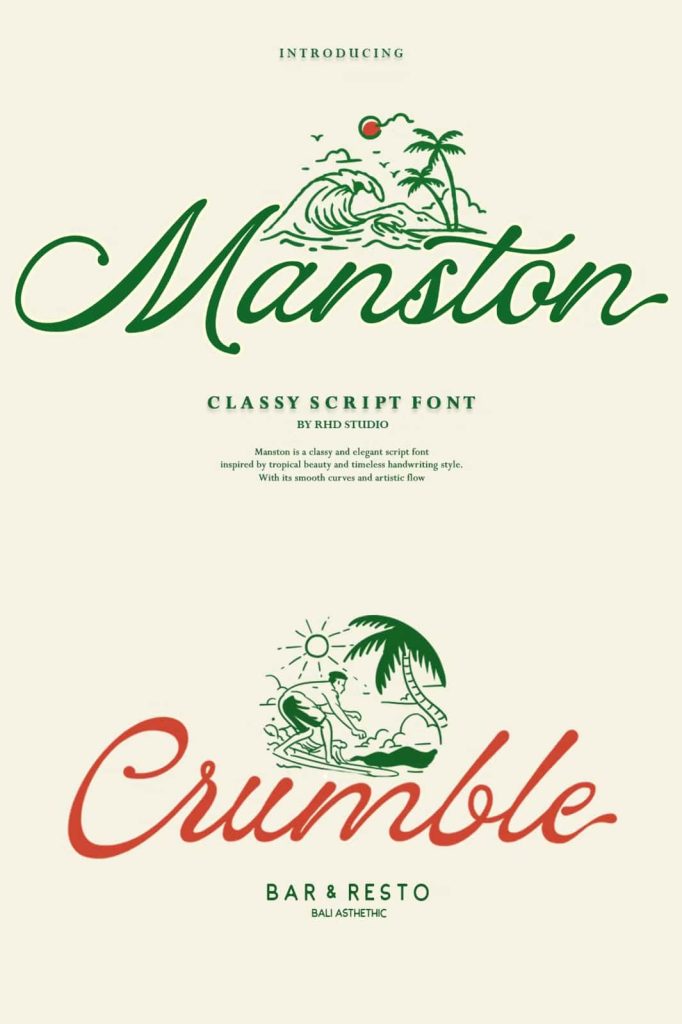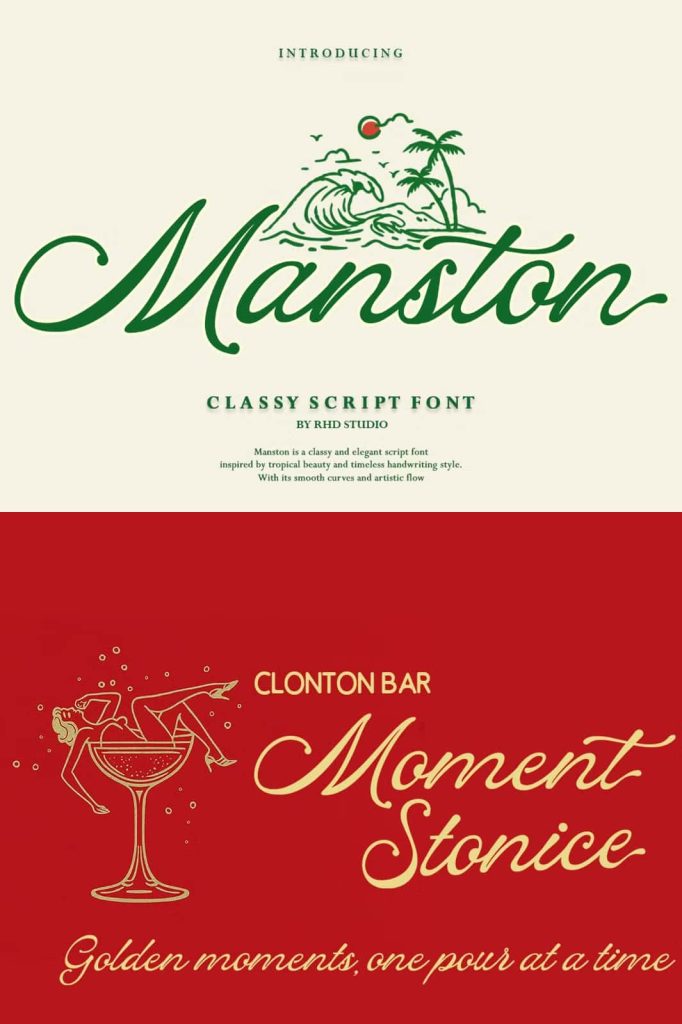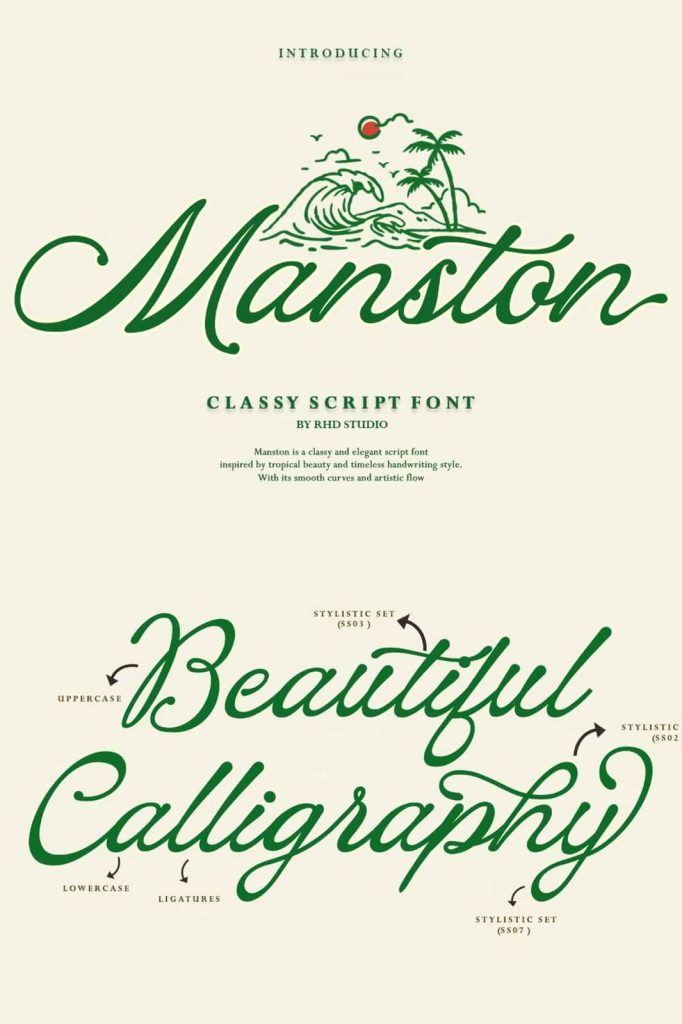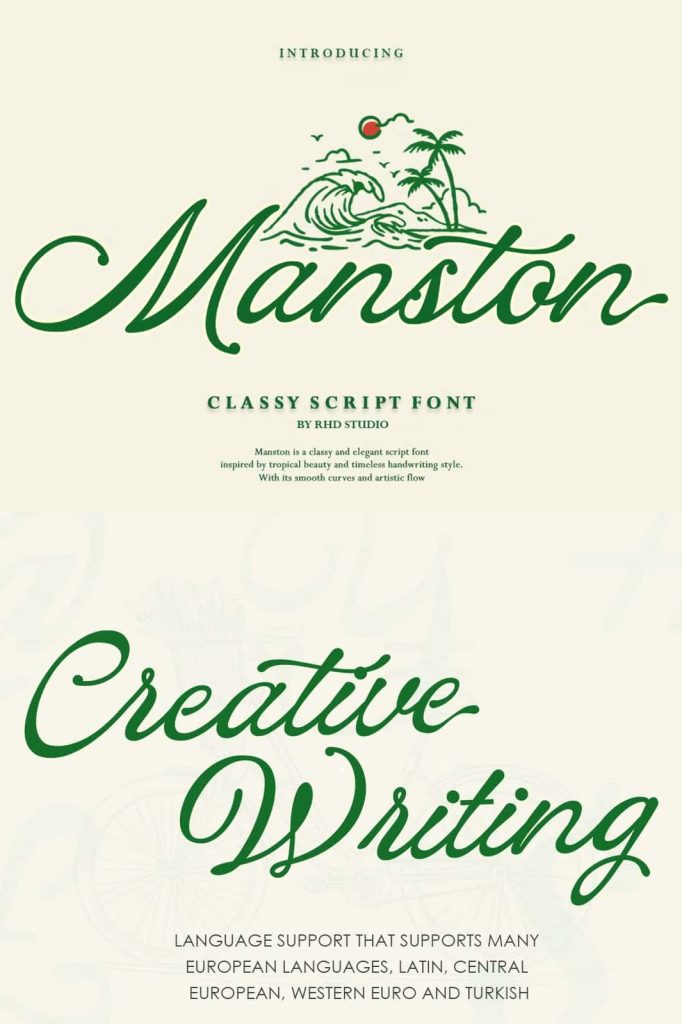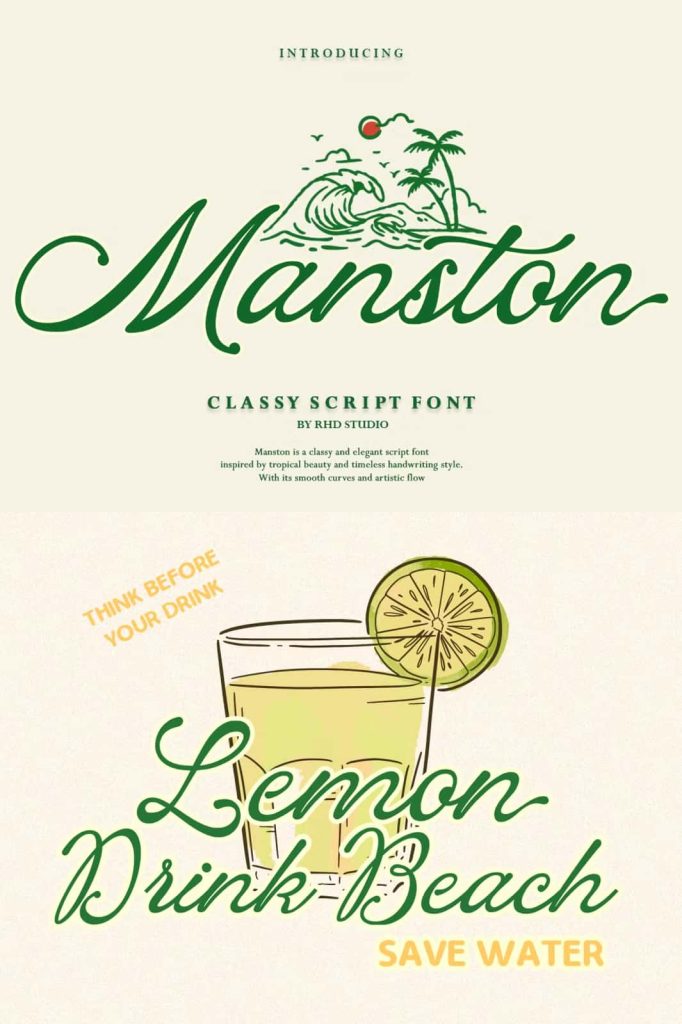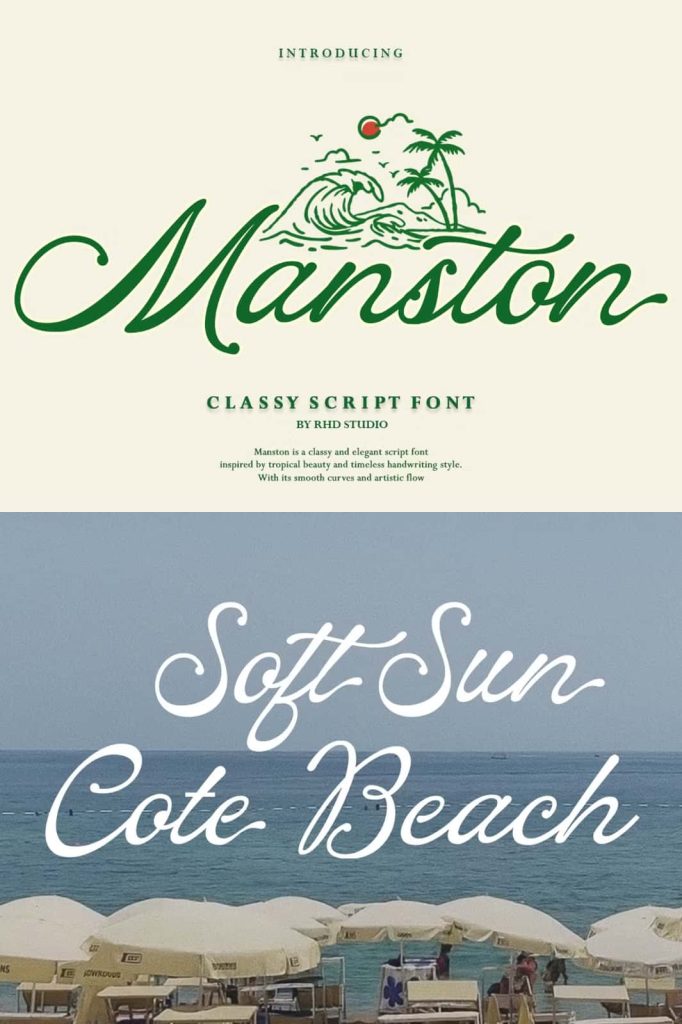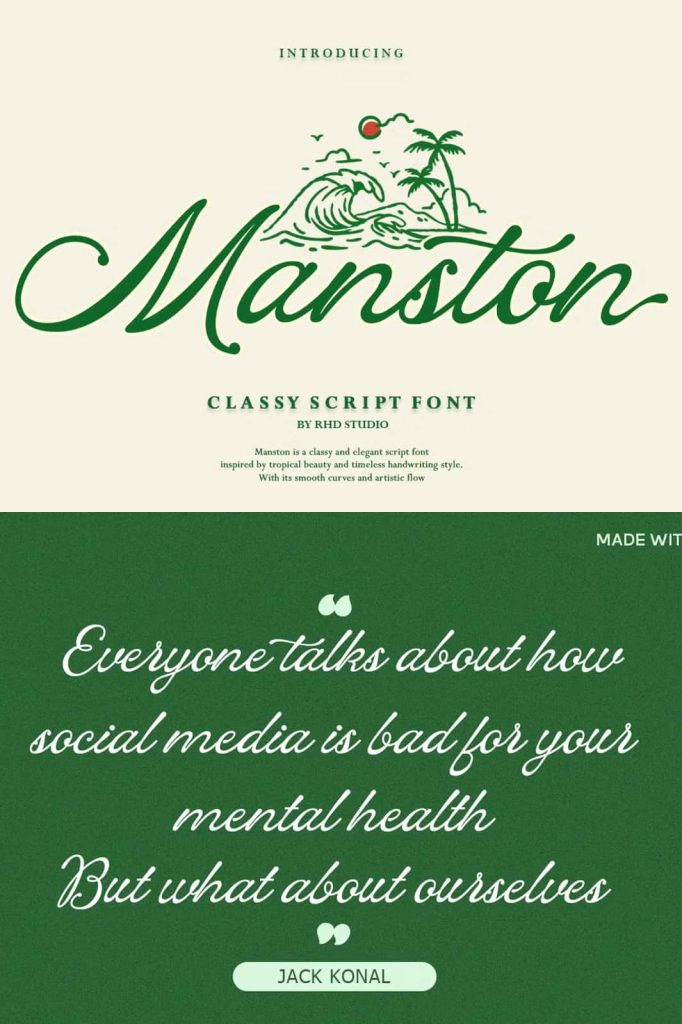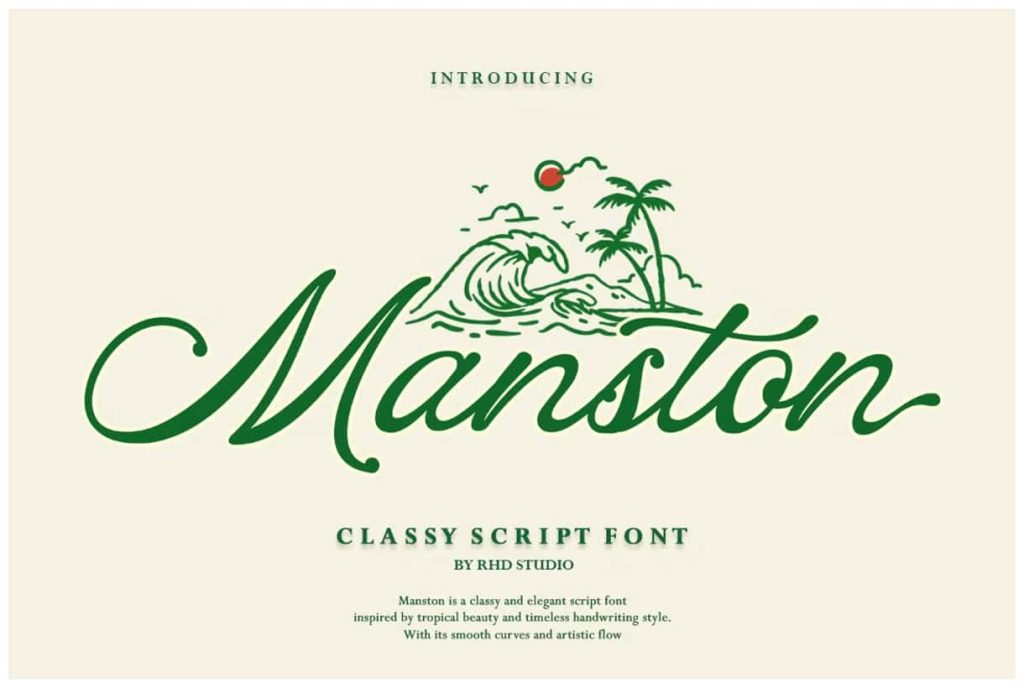
Manston – Classy Script Font Manston is an elegant script font infused with a captivating tropical vibe. Inspired by the beauty of beaches, the rhythm of ocean waves, and the spirit of endless vacations